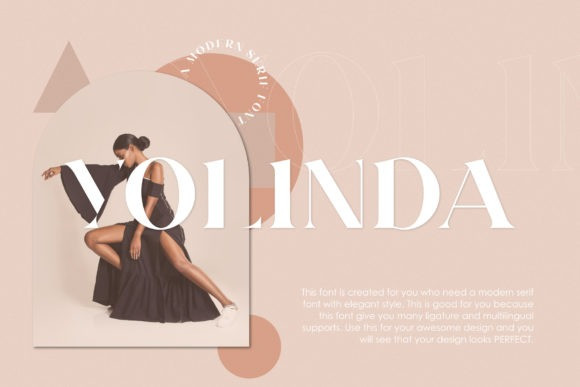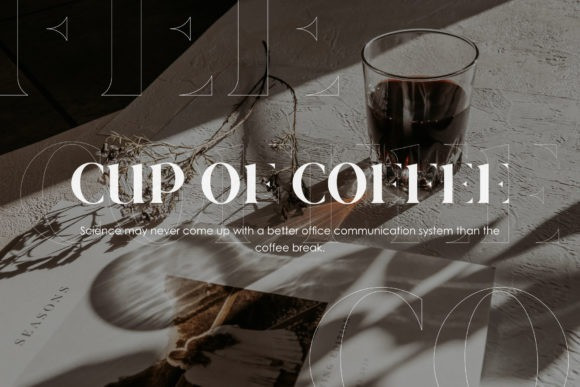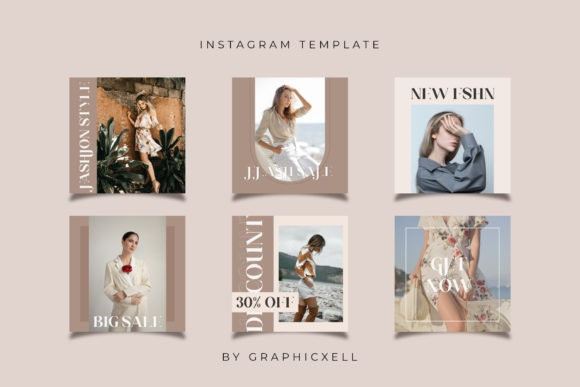
Yolinda Font
Yolinda is an elegant serif font inspired by minimalist typography. This font is perfect for designing templates, brochures, videos, advertising branding, logos, and many more. It will look amazing on any creative project, so add it with confidence, and notice how your work comes alive!